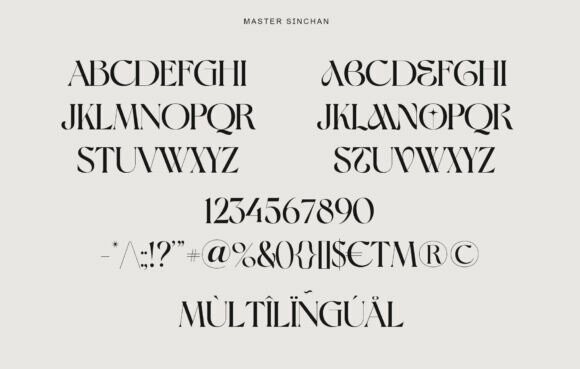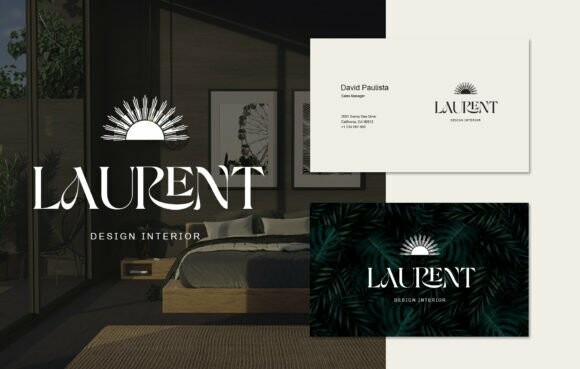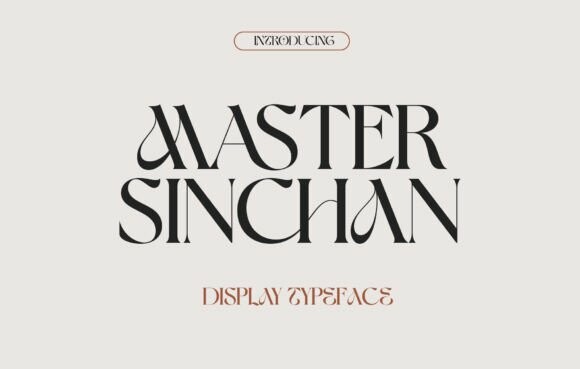
Master Sinchan Font
Designer: dnartdesignn
Master Sinchan Font is an elegant and bold serif font. Fall in love with its incredibly versatile style and use it to create gorgeous wedding invitations, beautiful stationary art, eye-catching social media posts, and much more!